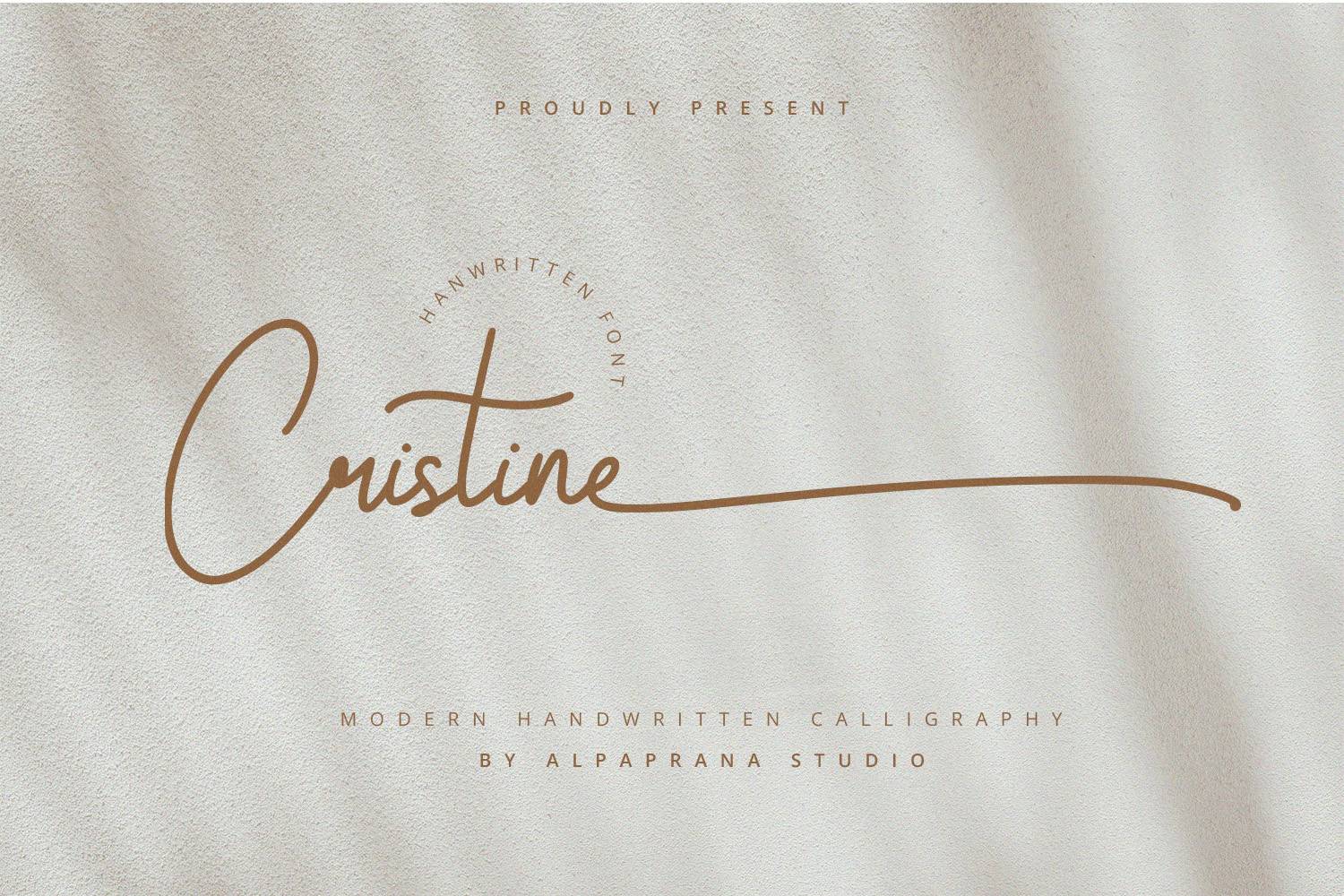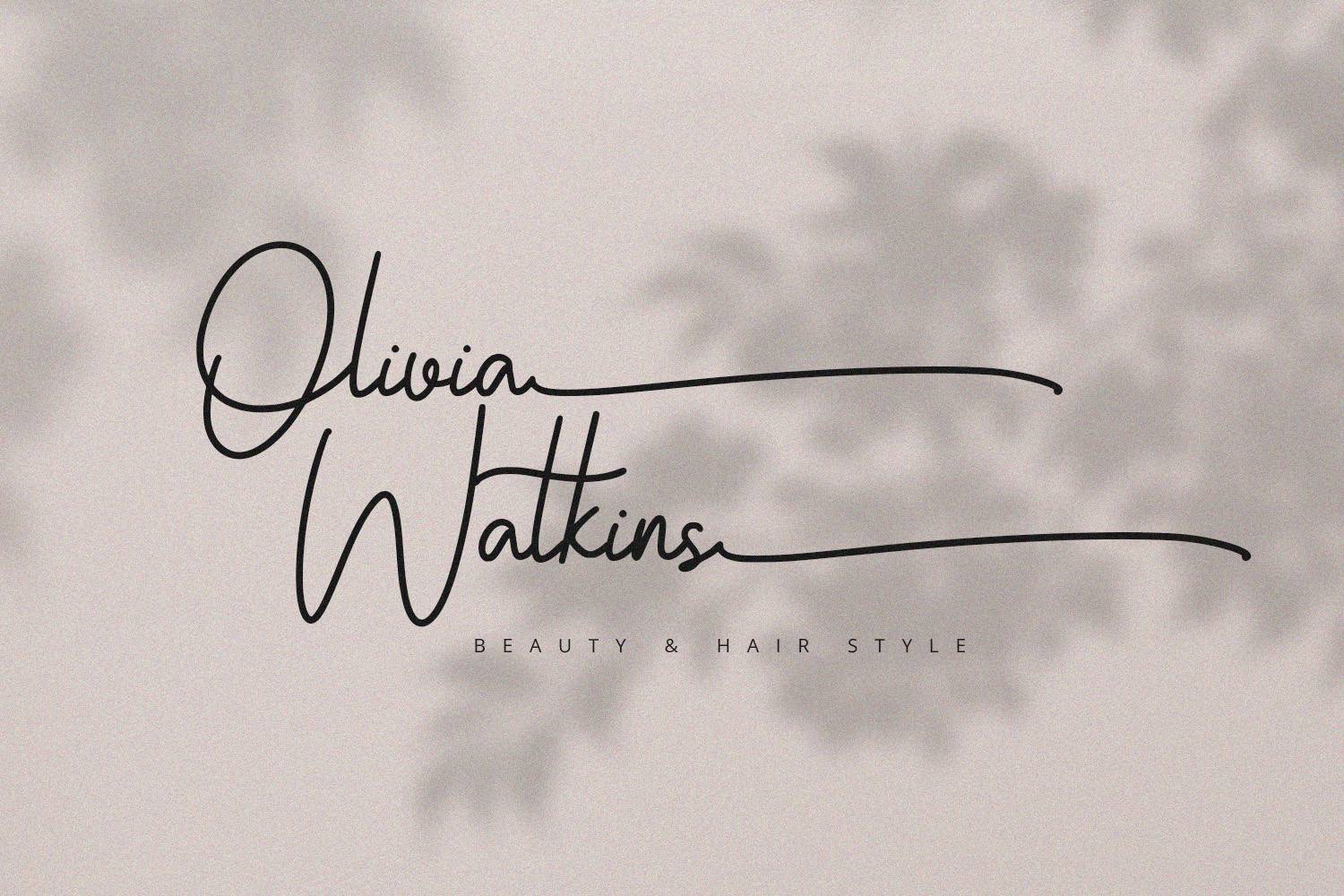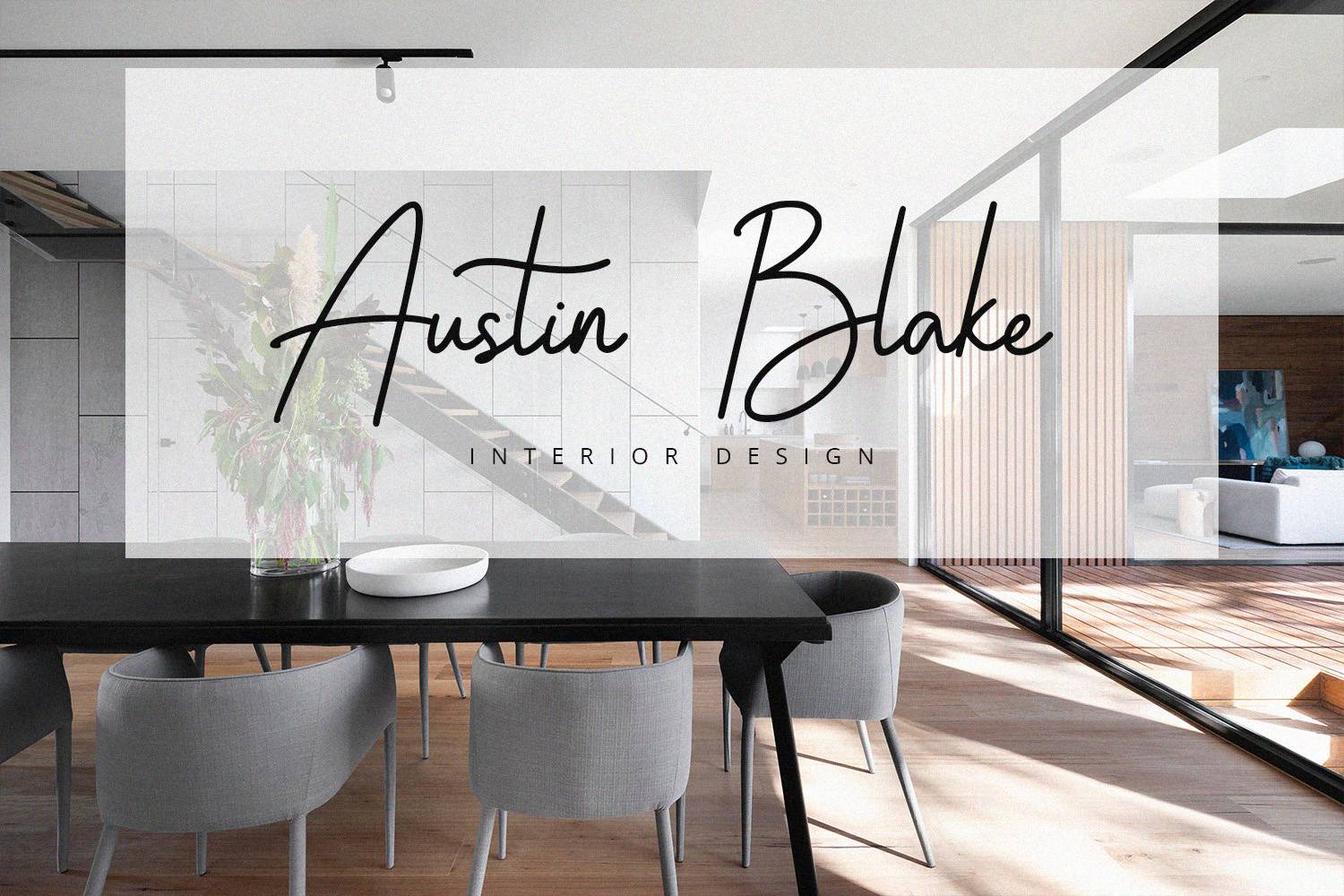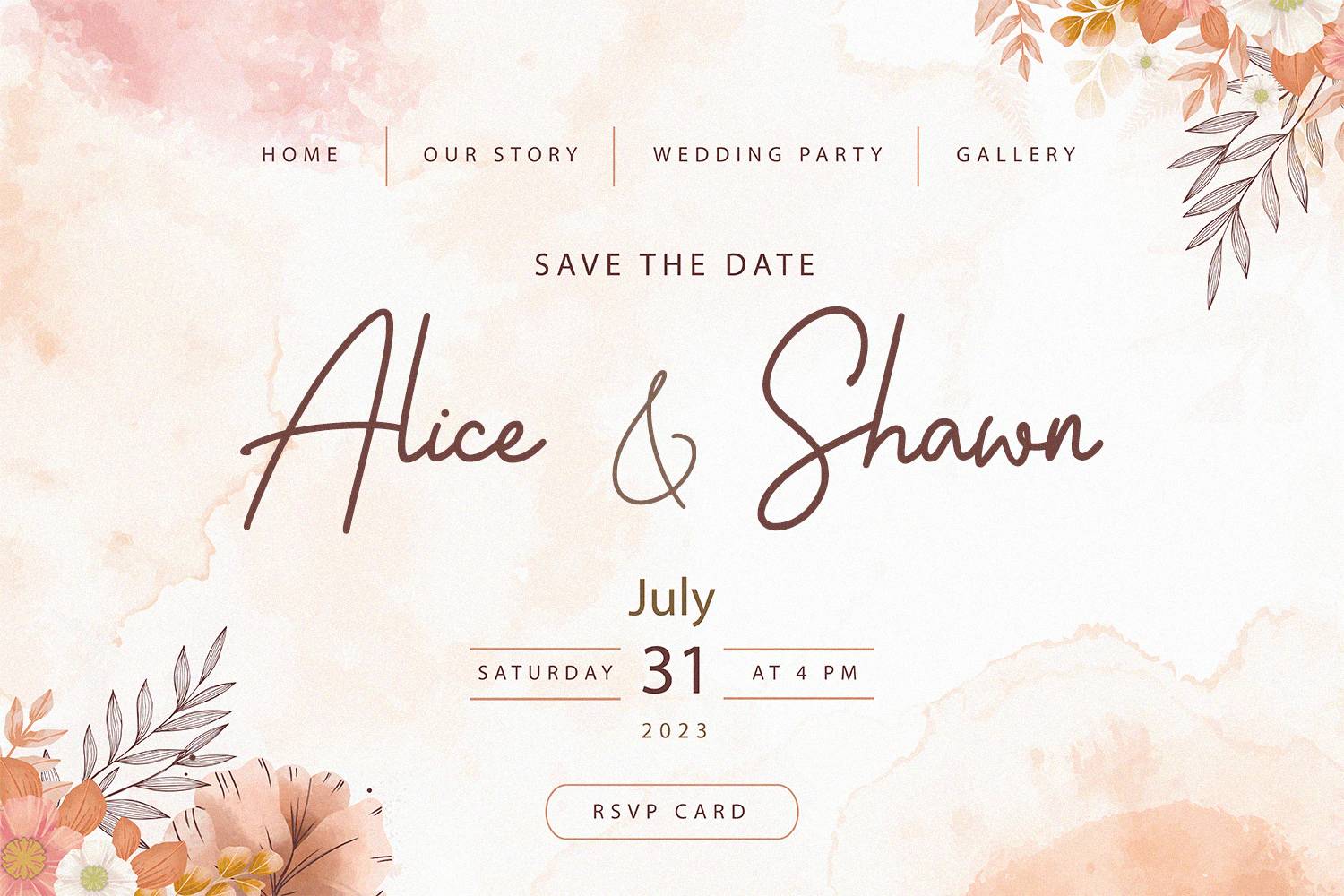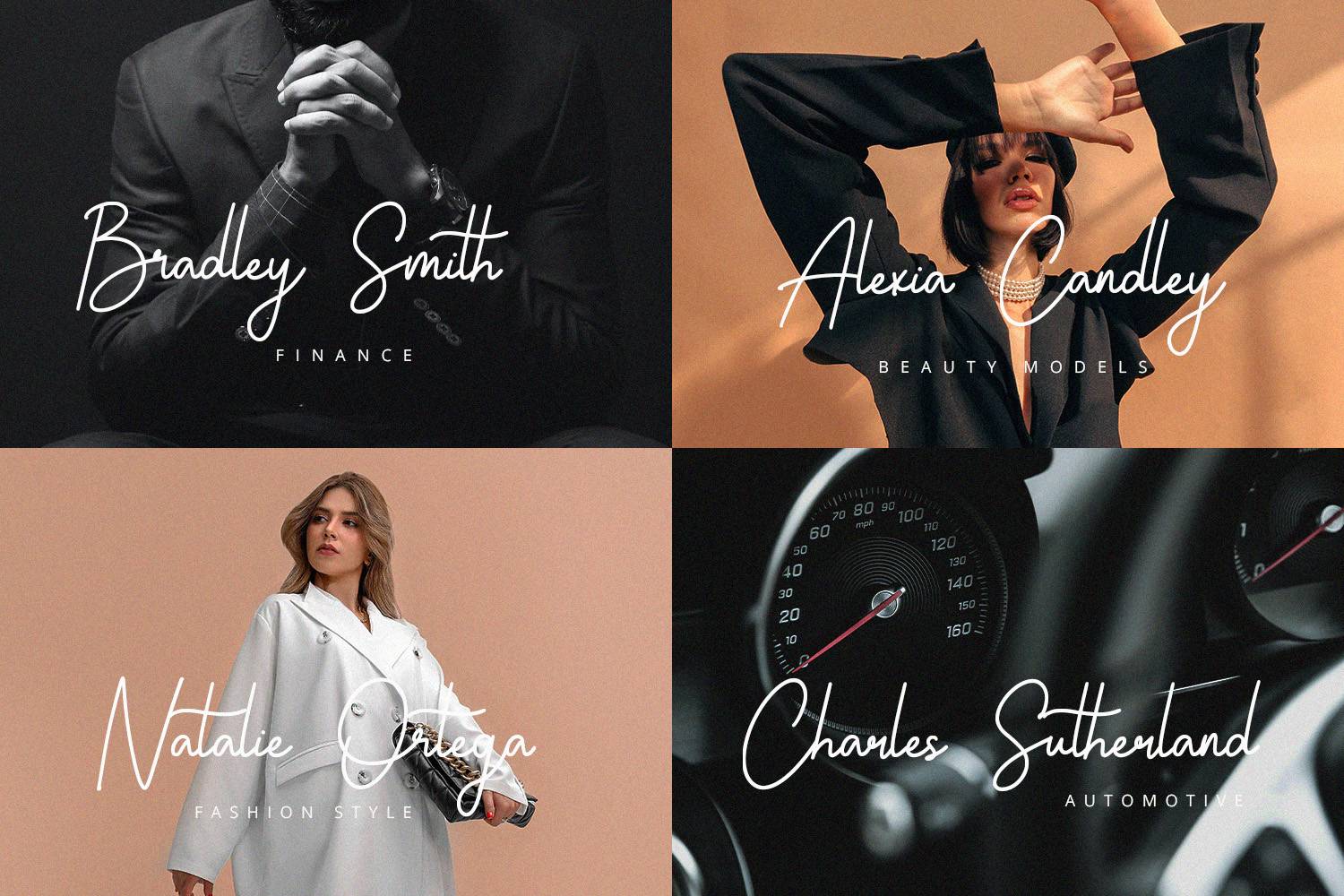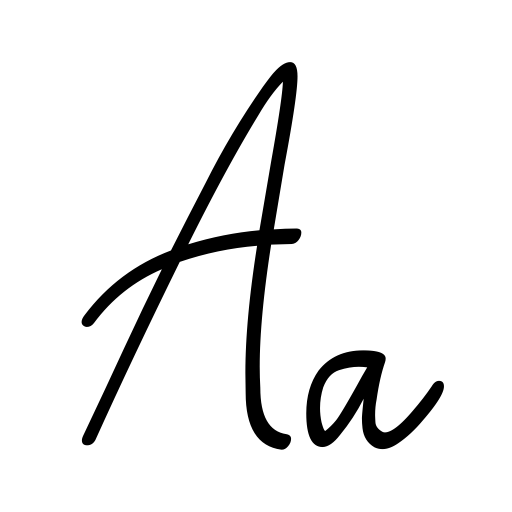
Cristine Font is a delicate, handwritten script that features thin, flowing lines with a light and elegant touch. Its slender, slightly slanted letterforms convey a personal and graceful feel, making it ideal for invitations, personal branding, and feminine design projects that seek a charming and intimate atmosphere. This font works beautifully in headlines and logos where a subtle, refined handwritten style is desired.
Cristine Font
About Cristine Font